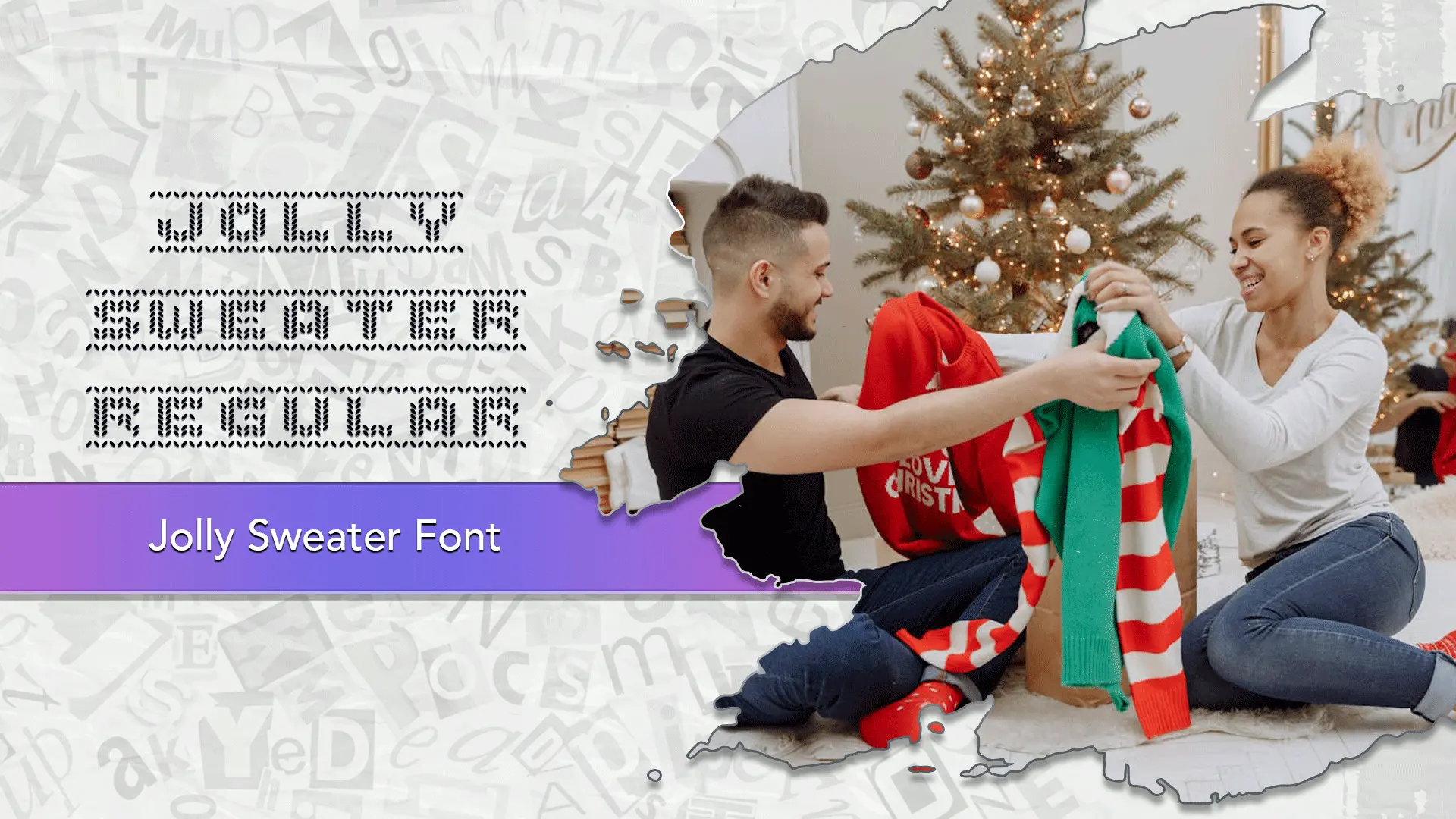
The Jolly Sweater font family may be ideal for you if you enjoy working on an artistic design project. The lively, expressive look of this typeface, which was created by GGBotNet, makes it ideal for Christmas/Winter Projects, Holiday cards, seasonal banners, posters, and party invitations. Social media posts, website banners, and marketing materials for holiday sales or events. Designs for DIY projects, needlework patterns, or printable decorations. and other light-hearted visual projects.
Bold, Light, Regular are the three primary font styles of the Jolly Sweater font family. You may build dynamic, visually appealing text layouts with the distinct flair that each style offers. With crisp, readable lines and a relaxed tone.